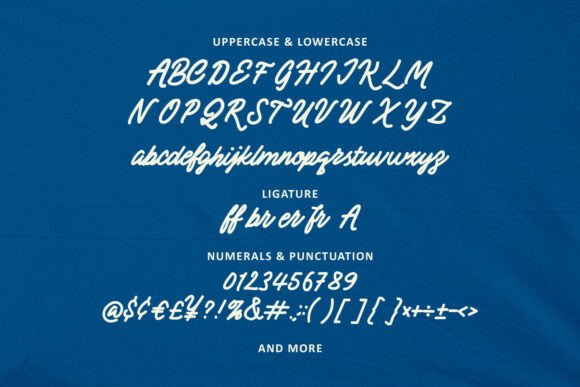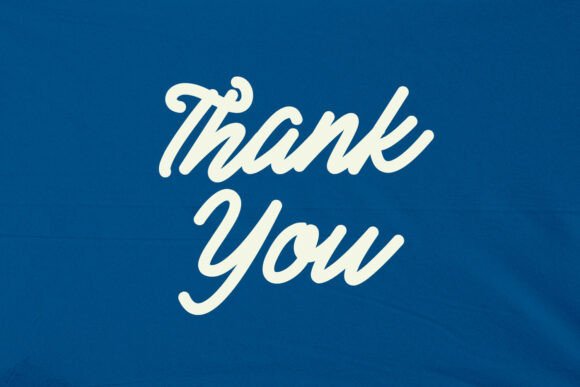
Introduction to Mingers Font
Have you ever been working on a creative project, pouring your heart and soul into it, and suddenly, you’re stuck on finding the perfect font? The one that captures the essence of your vision, yet remains timeless and versatile? For designers, the right font can make all the difference between a good design and a great one.
Enter the Mingers Font, a retro-inspired typeface that has been making waves in the design community. With its smooth stroke contrast, playful characters, and a touch of ligatures and alternates, this font is a game-changer for any creative project. Whether you’re working on a logo, social media graphic, or book title, Mingers Font is the perfect addition to elevate your design to the next level.
Key Features of Mingers Font
- High-quality design resource ideal for creative projects, including logos, branding materials, and digital art.
- Unique, modern design aesthetic with a transparent background, allowing for versatility and flexibility in design applications.
- Supports multiple languages, making it a valuable resource for designers working on international projects.
- Easy to customize and edit, with a range of font sizes and styles available for a professional, polished look.
Honest Review: Mingers Font
What works well: ✨ The Mingers Font has a transparent background, making it easy to layer with other design elements. The font itself is highly customizable, allowing me to adjust the spacing and style to suit my project’s needs. It’s also a great choice for digital designs, with clear and crisp characters.
- Unique aesthetic
- Great for digital designs
However, there are some limitations: ⚠️ The font may not be suitable for print designs, as the characters can become blurry when scaled up. Additionally, the font’s style may not appeal to all designers.
Tips for Getting the Most Out of Mingers Font
To get the most out of the Mingers Font, use it on a transparent background to create a high-quality design. Experiment with different font sizes and styles to add visual interest to your creative project.
The Mingers Font is ideal for designing logos, typography-based artwork, and creative projects that require a unique and stylish font. Its versatility makes it a valuable resource for designers and creatives.
No, the Mingers Font does not have a transparent background. However, the font is designed to be highly legible and versatile, making it suitable for use on a variety of backgrounds and design elements.
What is the recommended usage for the Mingers Font?
The Mingers Font is a high-quality design resource that can be used in a wide range of creative projects, including logos, branding materials, and typography-based designs. We recommend using the font in conjunction with other design elements to create a cohesive and visually appealing design.